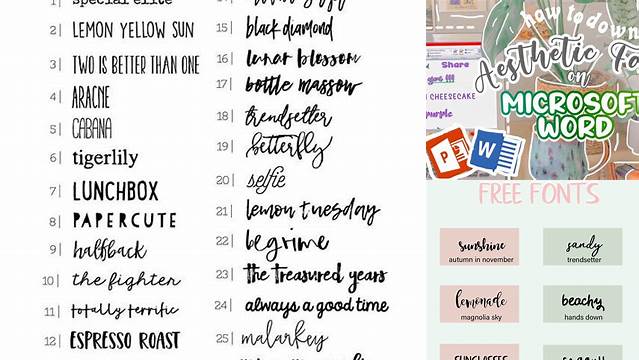
Aesthetic Fonts In Microsoft Word: A Comprehensive Guide
Choosing the right font can dramatically change the look and feel of your Microsoft Word documents. If you're aiming for an aesthetic vibe, selecting the perfect font is crucial. This guide will walk you through various aesthetic fonts available in Microsoft Word, how to find them, and how to use them effectively to enhance your documents. Guys, let's dive into the world of beautiful typography!
1. Understanding Aesthetic Fonts in Word
What exactly makes a font aesthetic? Well, it's all about creating a visually pleasing and harmonious look. Aesthetic fonts often have unique characteristics such as elegant curves, decorative serifs, or a modern, minimalist design. These fonts can evoke different emotions and styles, from classic and sophisticated to playful and whimsical. In Microsoft Word, you have access to a wide range of fonts, and understanding which ones fit the aesthetic bill is the first step. When considering aesthetic fonts, think about the overall tone you want to convey. Is it professional yet stylish? Or perhaps creative and artistic? Identifying your desired aesthetic will help you narrow down your font choices and ensure that your documents make the right impression. Remember, the right font can make your content not only readable but also visually engaging.
2. Best Serif Fonts for an Aesthetic Look
Serif fonts, with their small decorative strokes at the end of each character, often exude a classic and refined aesthetic. In Microsoft Word, several serif fonts stand out for their beauty and readability. Times New Roman, while a standard choice, can be used effectively in certain contexts, especially for formal documents. However, if you're looking for something more distinctive, consider Garamond, with its elegant and slightly old-fashioned charm. Another excellent option is Book Antiqua, which offers a softer, more approachable feel compared to Times New Roman. These aesthetic fonts provide a sense of tradition and sophistication, making them ideal for academic papers, formal letters, and professional reports. When using serif fonts, pay attention to the font size and spacing to ensure optimal readability. A well-chosen serif font can elevate your document, giving it a polished and professional aesthetic. Think of these fonts as the classic black dress of typography – always stylish and appropriate.
3. Top Sans-Serif Fonts for a Modern Aesthetic
Sans-serif fonts, lacking the decorative serifs, are known for their clean, modern lines. They're perfect for creating a contemporary and minimalist aesthetic in Microsoft Word documents. Arial is a widely used sans-serif font, but for a more stylish touch, consider Calibri, the default font in many versions of Word. Calibri offers a soft, rounded appearance that's both readable and aesthetically pleasing. Another excellent choice is Helvetica, a classic sans-serif font known for its simplicity and versatility. If you're aiming for a bolder statement, consider using Open Sans, which is clean, modern, and highly legible. These aesthetic fonts are ideal for headings, body text, and any situation where you want to convey a sense of clarity and modernity. The key to using sans-serif fonts effectively is to balance their simplicity with thoughtful formatting. A clean font paired with ample white space can create a visually striking and contemporary aesthetic.
4. Decorative and Script Fonts for Unique Aesthetics
For those seeking a more unique and creative aesthetic, decorative and script fonts in Microsoft Word offer a plethora of options. These fonts often feature elaborate designs, flowing lines, and a touch of personality. However, it's crucial to use them sparingly, as they can be less readable than serif or sans-serif fonts. Consider using them for headings, titles, or special sections where you want to make a statement. Some popular decorative fonts include Brush Script MT, which mimics elegant handwriting, and Papyrus, with its distinctive textured appearance. Script fonts like Corsiva offer a touch of sophistication and are perfect for invitations or greeting cards. When incorporating these aesthetic fonts, ensure they complement the overall design and don't overshadow the content. Think of them as the accessories to your outfit – a little can go a long way. A well-chosen decorative font can add a touch of whimsy or elegance, making your document stand out.
5. Combining Fonts for Visual Harmony
One of the keys to creating an aesthetic document in Microsoft Word is the art of combining fonts effectively. Using a mix of fonts can add visual interest and hierarchy to your text. A common practice is to pair a serif font for body text with a sans-serif font for headings, or vice versa. This creates a contrast that is both pleasing to the eye and easy to read. For example, you might use Garamond for the main text and Helvetica for the headings. When combining aesthetic fonts, ensure they complement each other in terms of style and weight. Avoid using too many different fonts in a single document, as this can create a cluttered and confusing appearance. Stick to a maximum of two or three fonts and use them consistently throughout your document. The goal is to create a harmonious visual experience that enhances your message, not distracts from it. Think of font pairing as putting together a stylish outfit – the right combination can make all the difference.